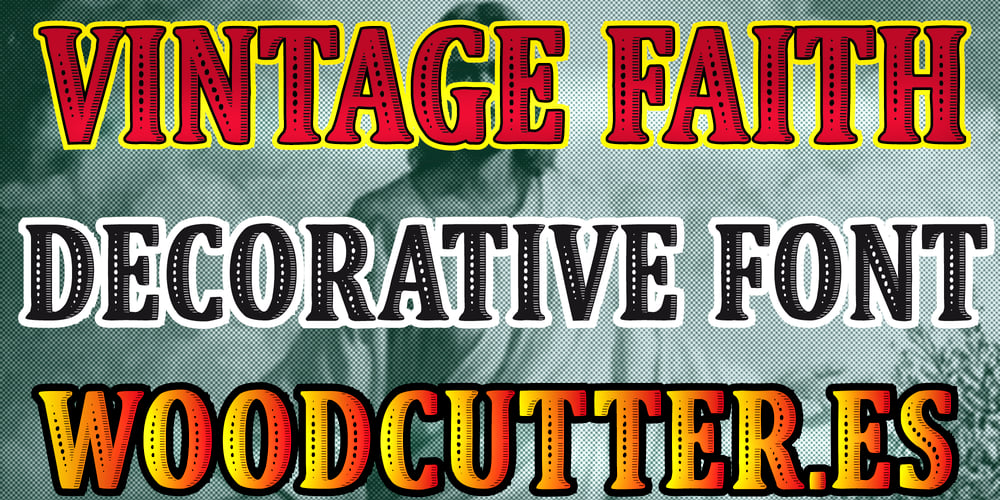
Vintage Faith
Vintage Faith font
Vintage Faith Font Family was designed by Jordi Manero and published by Woodcutter. Vintage Faith contains 1 styles and family package options. “Vintage Faith” is a Times-style typeface, adorned with elegant decorations on each letter. Its classic design is enriched with ornamental details, giving it an air of sophistication and nostalgia. Ideal for projects aiming to convey a touch of tradition and refinement, “Vintage Faith” is perfect for titles, invitations, and editorial designs that seek to stand out with a timeless and decorative style. The combination of its traditional structure with decorative elements makes it unique and eye-catching.–Uppercase